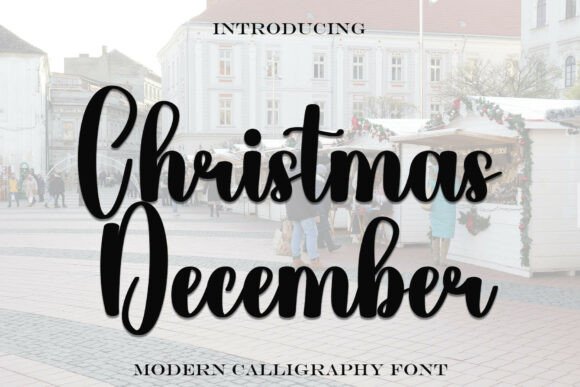
Christmas December Font: A Modern Calligraphy Font for Festive Holiday Projects
As the holiday season approaches, designers and crafters are on the lookout for the perfect font to add a touch of magic to their Christmas projects. Look no further than Christmas December Font, a modern calligraphy font designed to bring warmth, charm, and a festive spirit to your holiday-themed creations. With its smooth, flowing curves and hand-lettered feel, this font is perfect for Christmas cards, invitations, signage, social media, and seasonal branding.
What is Christmas December Font?
Christmas December Font is a modern calligraphy font that embodies the spirit of the holiday season. Its elegant yet playful style makes it perfect for a wide range of applications, from personal projects to commercial use. The font’s smooth, flowing curves and hand-lettered feel give it a unique and distinctive look that is sure to capture the attention of your audience.
Key Features of Christmas December Font
- Smooth, flowing curves: The font’s smooth, flowing curves give it a elegant and sophisticated look that is perfect for holiday-themed projects.
- Hand-lettered feel: The font’s hand-lettered feel adds a touch of personality and whimsy to your projects, making them stand out from the crowd.
- Elegant yet playful style: The font’s elegant yet playful style makes it perfect for a wide range of applications, from formal Christmas cards to festive social media posts.
- Versatile: The font is versatile and can be used for both personal and commercial projects, making it a great addition to your design toolkit.
Uses for Christmas December Font
Christmas December Font is perfect for a wide range of holiday-themed projects, including:
- Christmas cards: Add a touch of elegance and sophistication to your Christmas cards with this beautiful font.
- Invitations: Create festive and fun invitations for your holiday parties and events.
- Signage: Use the font to create eye-catching signage for your holiday promotions and events.
- Social media: Add a touch of holiday cheer to your social media posts with this festive font.
- Seasonal branding: Use the font to create a cohesive and festive brand identity for your business during the holiday season.
Why Choose Christmas December Font?
There are many fonts to choose from, but Christmas December Font stands out from the crowd for several reasons:
- Unique and distinctive look: The font’s smooth, flowing curves and hand-lettered feel give it a unique and distinctive look that is sure to capture the attention of your audience.
- Elegant yet playful style: The font’s elegant yet playful style makes it perfect for a wide range of applications, from formal Christmas cards to festive social media posts.
- Versatile: The font is versatile and can be used for both personal and commercial projects, making it a great addition to your design toolkit.
- High-quality: The font is high-quality and is designed to deliver exceptional results, even at large sizes.
Tips for Using Christmas December Font
Here are a few tips for getting the most out of Christmas December Font:
- Use it sparingly: Use the font sparingly to add a touch of elegance and sophistication to your projects.
- Experiment with colors: Experiment with different colors and textures to add depth and interest to your projects.
- Pair it with other fonts: Pair the font with other fonts to create a unique and visually appealing look.
- Use it consistently: Use the font consistently across all of your holiday-themed projects to create a cohesive and festive brand identity.
Christmas December Font is a modern calligraphy font designed to bring warmth, charm, and a festive spirit to your holiday-themed projects. With its smooth, flowing curves and hand-lettered feel, this font is perfect for Christmas cards, invitations, signage, social media, and seasonal branding. Its elegant yet playful style captures the essence of the holidays while remaining versatile for both personal and commercial use. Whether you’re a designer, crafter, or business owner, Christmas December Font is a great addition to your design toolkit.
- What is Christmas December Font? Christmas December Font is a modern calligraphy font designed to bring warmth, charm, and a festive spirit to your holiday-themed projects.